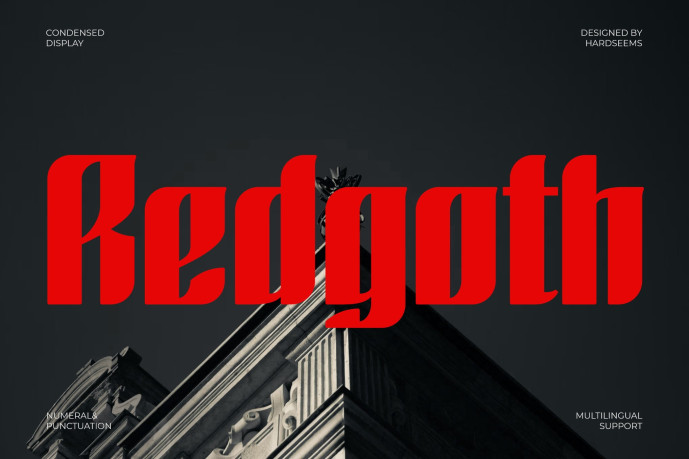
Redgoth Font
Designer: hardseems
Redgoth Font is a bold, dense blackletter font designed for strong visuals. Perfect for anything that requires a sharp, modern gothic look.